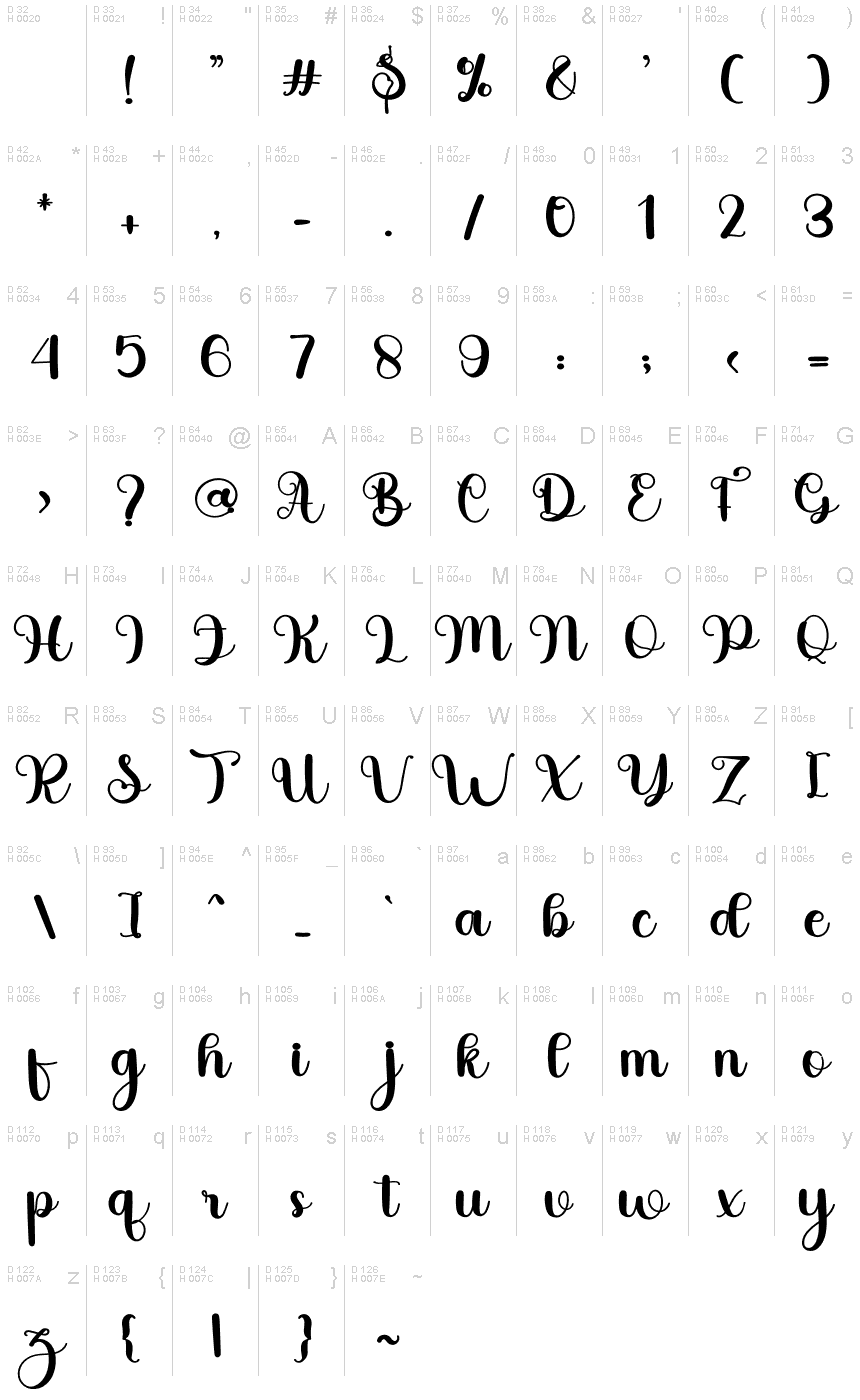
Wedding Mathyna
Wedding Mathyna, designed by FreshtypeINK, is a popular and professional calligraphy font with a semi-bold weight. Its modern and elegant style is created through beautiful creative strokes, making it suitable for a wide range of projects.
This font is perfect for both formal and informal creative ideas. Its modern style with a touch of creativity makes it ideal for applications such as invitation cards, letterheads, website logos, social media posts, banners, advertisements, brochures, packaging products, leather goods, and any other product that requires written content.
By using Wedding Mathyna in your designs, you can achieve a luxurious, elegant and attractive look. The font includes a complete set of beautiful upper and lowercase letters along with numbers and various punctuation marks. Additionally, it offers ligatures to enhance the realistic style of the lowercase letters.